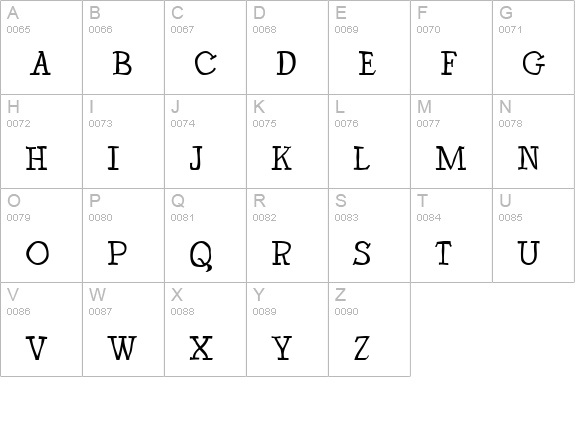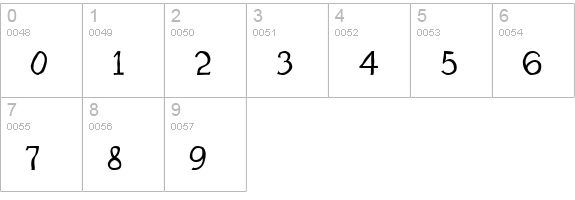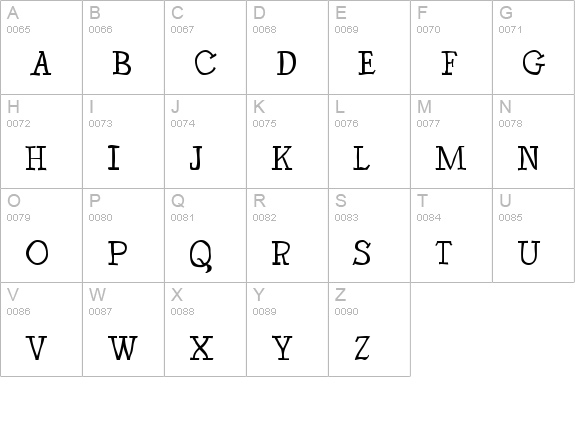
Dschoyphul Font Details
Dschoyphul font is an elegant and modern typeface that is perfect for a wide range of design projects. With its clean lines and unique character shapes, Dschoyphul adds a touch of sophistication to any text. This font features a variety of weights and styles, making it versatile for both headers and body text. What makes Dschoyphul font even more appealing is that it is completely free to download. You can easily access this beautiful font at FontsMarket.com and use it in your personal and commercial projects without any restrictions. Whether you're designing a website, creating a logo, or working on a print project, Dschoyphul font will elevate your design and give it a professional look. Download Dschoyphul font today and enhance your creative work with this stunning typeface.